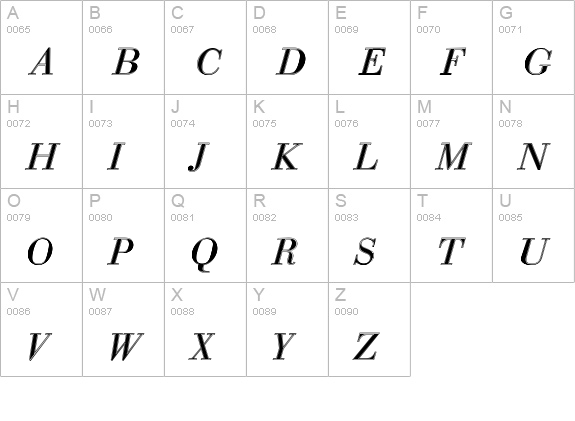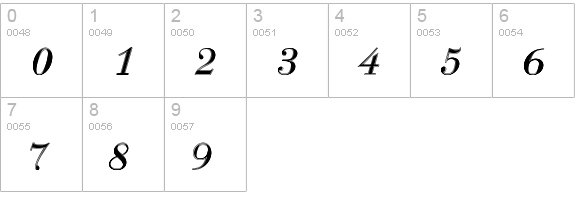
Bauer Bodoni T Regular Italic In1 is the standard, neutral, italic variant in the Bauer typeface family \xE2\x80\x94 well suited to general body text, paragraphs, and standard typographic work.
The Bauer Bodoni T Regular Italic In1 font is a classic and elegant typeface that exudes sophistication and artistry. Its gracefully slanted italics add a touch of flair to any design, making it perfect for projects that require a refined and polished look. The delicate serifs and balanced letterforms of this font create a harmonious visual impact that is both timeless and contemporary. What makes Bauer Bodoni T Regular Italic In1 font even more appealing is that it is freely available to download at FontsMarket.com. This means that designers and creatives can access this high-quality font without any cost, making it a valuable resource for a wide range of design projects. Whether used for branding, editorial design, or web applications, Bauer Bodoni T Regular Italic In1 font is sure to elevate your work with its sophisticated charm and versatility.